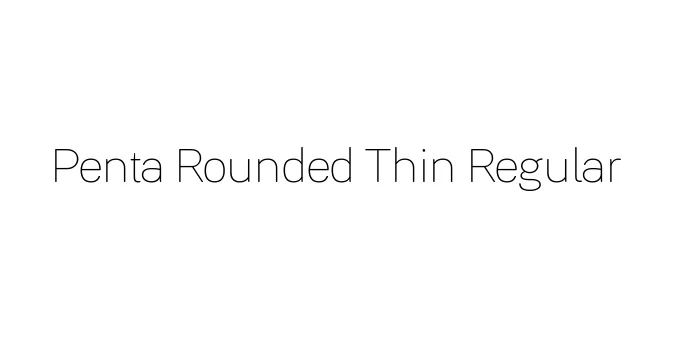
Penta Rounded Thin Regular
Designed by Pavel Pavlov
| Font Name | Penta Rounded Thin |
| Designer | Pavel Pavlov |
Penta Rounded Thin Regular is a sophisticated geometric sans-serif typeface that emphasizes clarity and softness. Part of the larger Penta family, this specific weight focuses on extreme minimalism, utilizing ultra-light strokes and perfectly rounded terminals to create a look that is both futuristic and approachable. Its design philosophy centers on stripping away unnecessary ornamentation to highlight the structural beauty of geometric forms.
The font is particularly renowned for its high legibility in digital environments and its ability to convey a sense of premium elegance without being overbearing. By combining a large x-height with open apertures, Penta Rounded Thin Regular ensures that even at its thinnest weight, it remains functional for modern web interfaces, luxury branding, and high-end editorial layouts where a delicate touch is required.
Penta Rounded Thin Regular Best Uses
Clean and airy hero sections, navigation menus, and minimalist site headers.
Logo design for tech startups, luxury skincare brands, and modern lifestyle products.
Subtle, sophisticated headlines and pull quotes in high-fashion or architecture magazines.
User interfaces that require a soft, friendly, and uncluttered aesthetic.